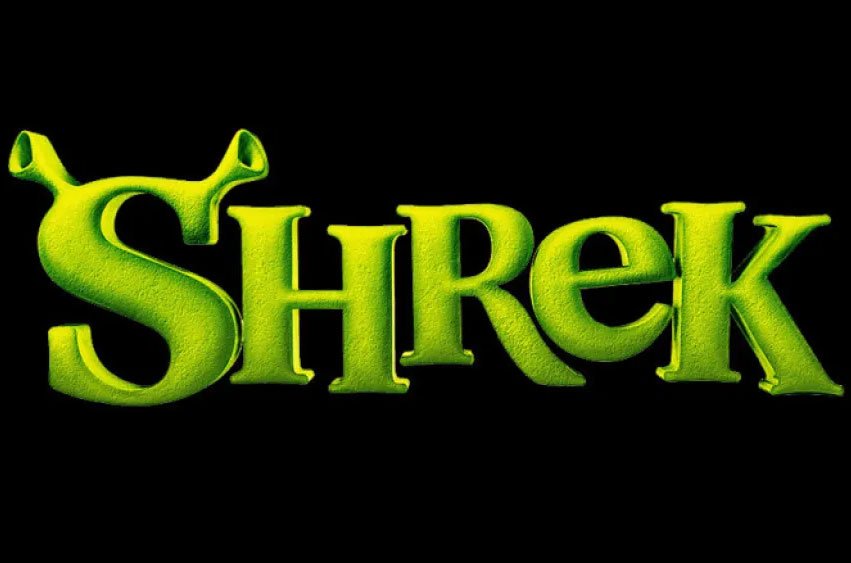
Shrek Font was created specifically for poster use and to name this animated film, and has gained significant acclaim throughout recent years. Take a look at this incredible movie and its fascinating typeface!
Shrek font, as its name suggests, oozes laughter! With its playful yet frightening forms and cheerful hues, it will capture children’s attention immediately and is suitable for use in cartoons, magazines games credits titles posters etc for children.